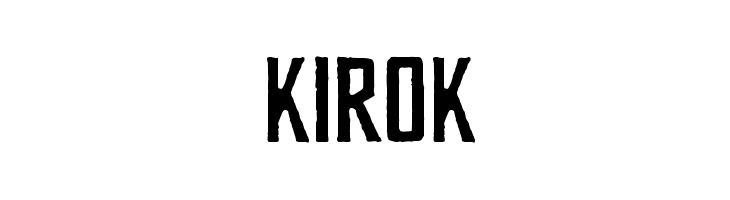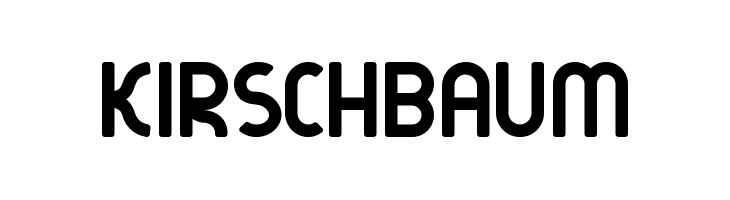
A distressed, vintage typewriter-style font with a rugged, handcrafted appearance.
A vintage, typewriter-style font with textured, uneven edges.
( Fonts by junkohanhero )
A bold, condensed font with a modern and impactful style.
( Fonts by www.typodermicfonts.com - Ray Larabie )
A bold, angular font with a vintage, geometric style.